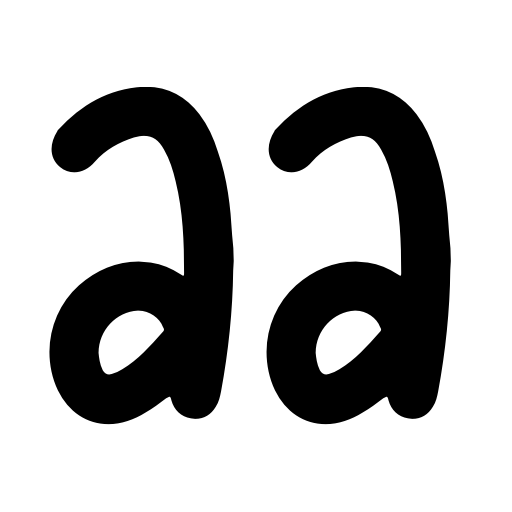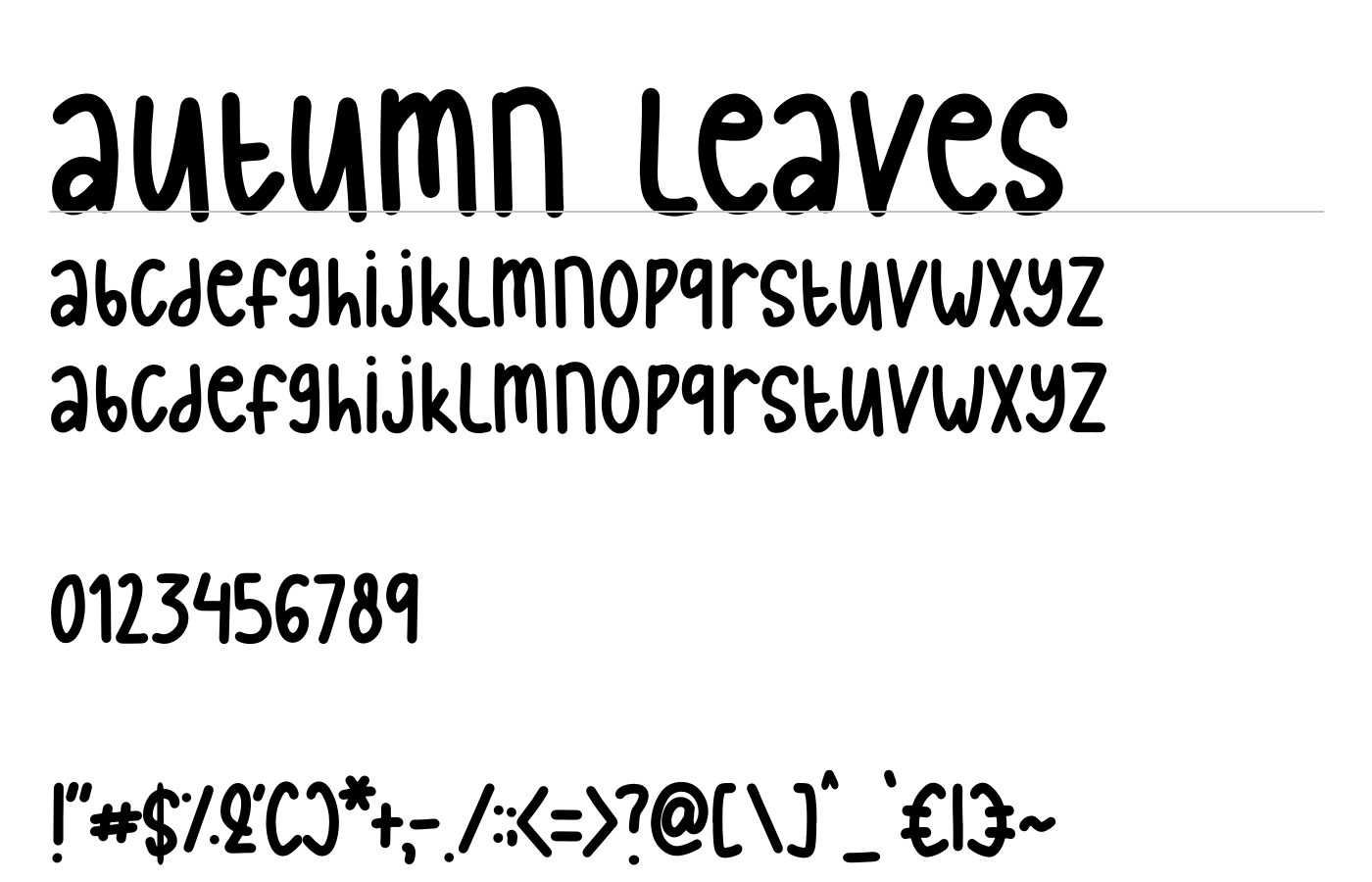
Autumn Leaves is a playful, handwritten sans serif font with a casual and friendly feel, featuring rounded, slightly irregular letterforms that evoke warmth and approachability. Its medium weight and tall x-height make it highly legible, perfect for informal designs that want to convey creativity and cheerfulness. This font works well for children’s books, greeting cards, casual branding, and any project seeking a charming, hand-crafted look.
Autumn Leaves Font
About Autumn Leaves Font
| Font family | Autumn Leaves Font |
| Designer | Muhammad Hisyam Rivai |